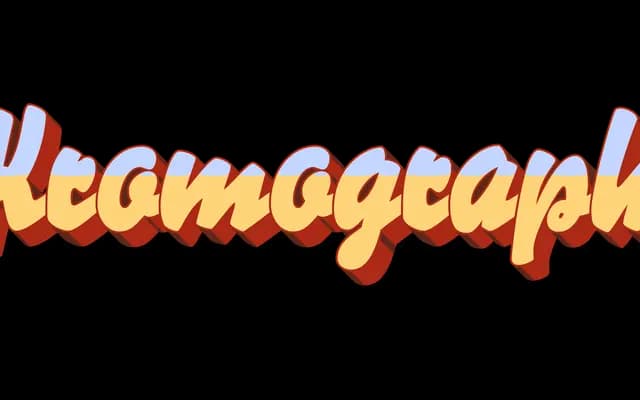
FDI Kromograph
FDI Type Foundry · Walter Wege, Ralf Herrmann · 2024
A pair of OpenType colour fonts designed to accompany FDI Lettograph, offering 3D layering and contextual colour-shift effects across ten predefined palettes.
Built as a companion to FDI Lettograph, FDI Kromograph comes in two distinct subfamilies: Kromograph A uses five layers to create a 3D effect, while Kromograph B uses three layers with a colour-change effect triggered by the contextual alternates feature. Each subfamily ships with ten predefined colour palettes and is available as both OpenType SVG and COLR/CPAL fonts, allowing colour overrides via CSS. Coverage is Western Latin with contextual alternates for word-initial and word-final positions.
A chromatic display typeface built as layered OpenType colour fonts (SVG and COLR/CPAL), designed specifically for headlines, logos and editorial use. Its 3D and colour-shift effects place it firmly in the display category.